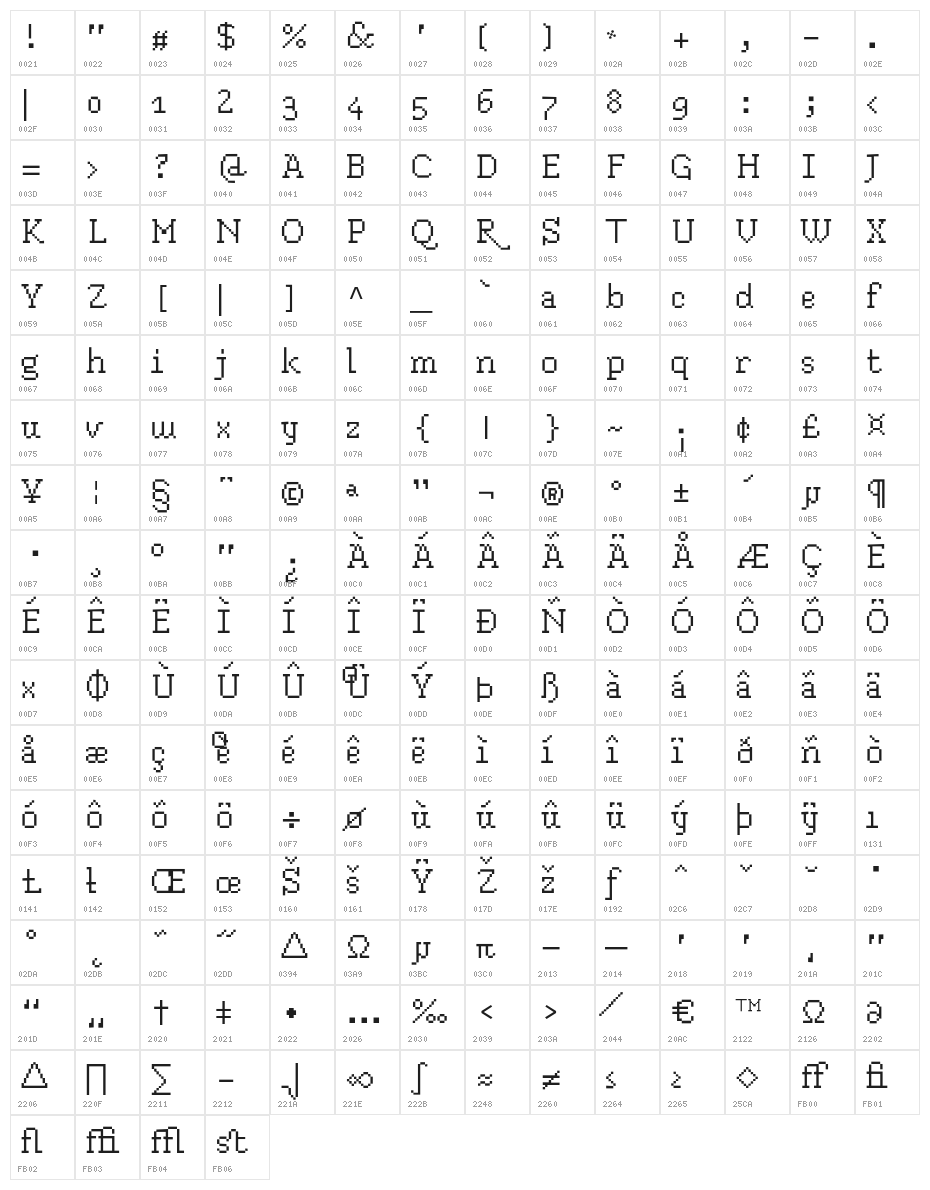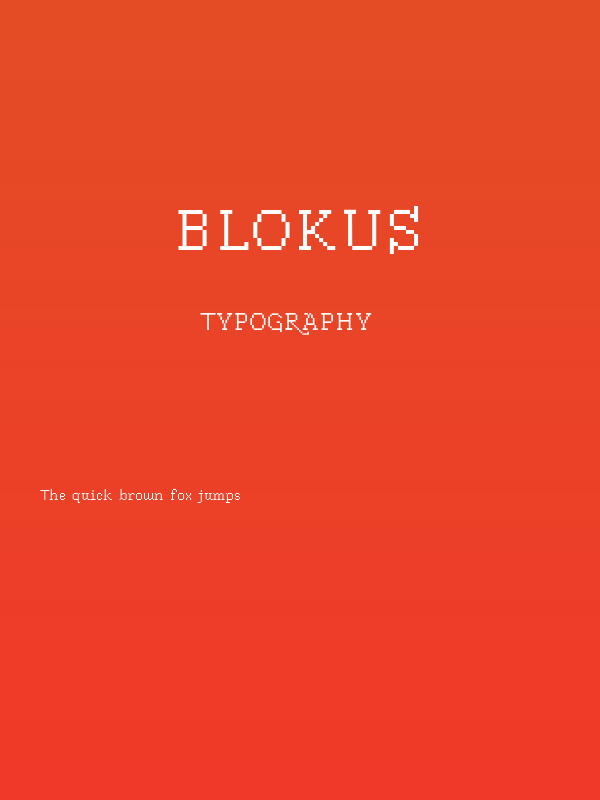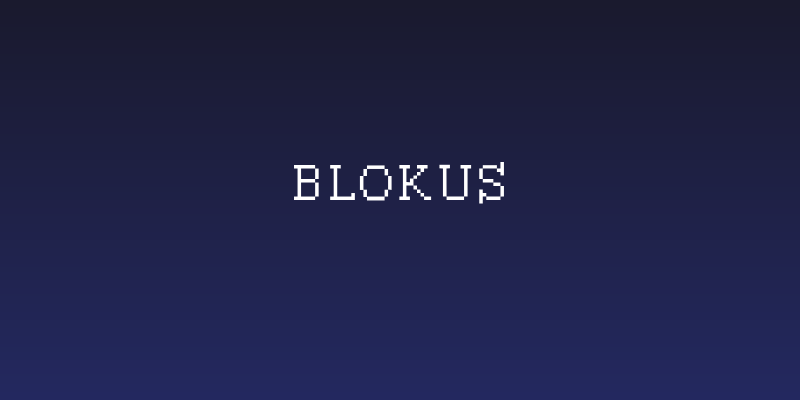
Blokus Font
Blokus Description
This font features a pixelated, blocky design reminiscent of early digital displays and retro video games. Each character is constructed with a grid-like precision, giving it a distinctly digital and geometric appearance. The uppercase and lowercase letters maintain a consistent height, while the numerals and special characters follow the same pixelated style, ensuring uniformity across all glyphs. The font's simplicity and clarity make it ideal for projects that require a vintage or tech-inspired aesthetic. Its monospaced nature ensures that each character occupies the same amount of horizontal space, which is particularly useful in coding or tabular data presentations.
| Use Case | Logos, Coding, Digital Art |
| Proposed Projects | Ideal for retro video game designs, digital art projects, coding displays, and tech-themed branding. |